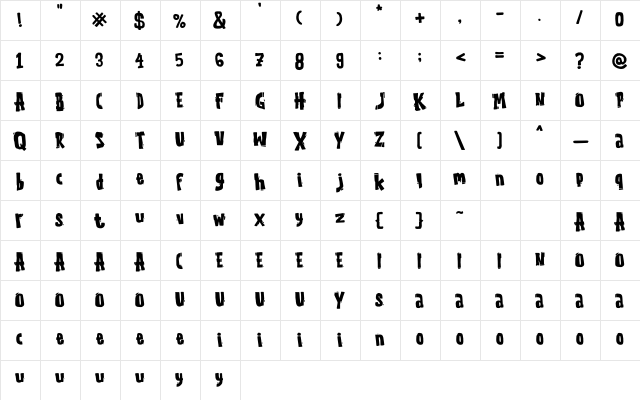
The Quakeer Regular
| Foundry | Rometheme Studio |
| Designer | Rometheme Studio |
Design Context for The Quakeer Typeface
The Quakeer is a composed and adaptable typeface that performs quietly and consistently across a wide range of design contexts.